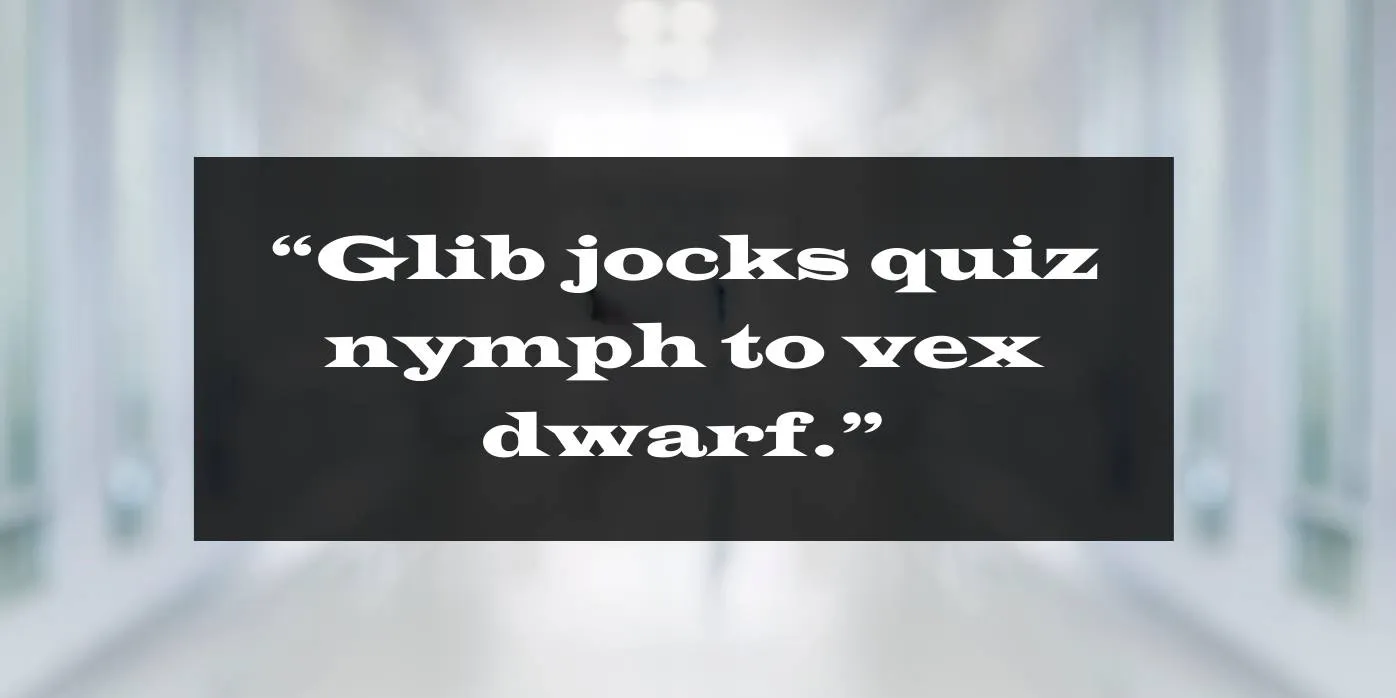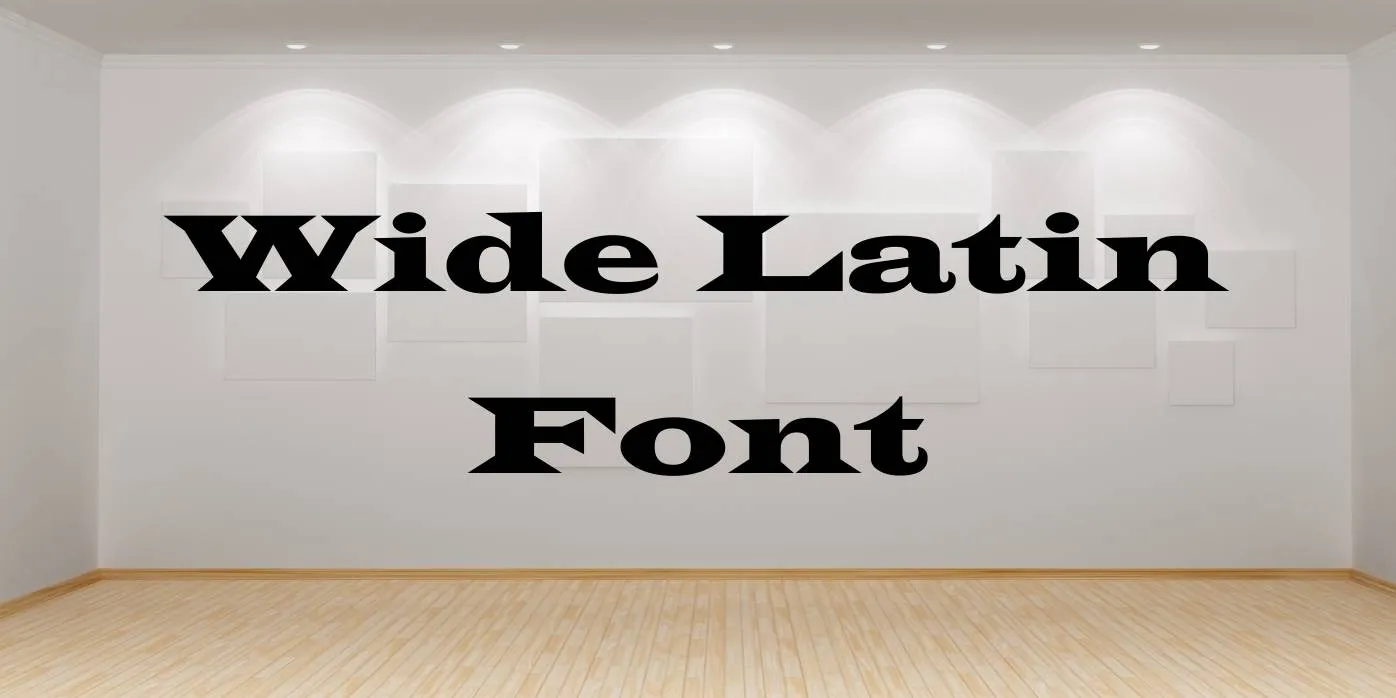
Wide Latin Font
Here, we present a very famous typeface named Wide Latin Font. This tremendous typeface e belongs to the Slab Serif family. The original designer of this family was Stephenson Blake. So, this family firstly appeared in 1820.
It is a very wide typeface that is best suited for headlines and other display purposes. It is available in both regular and bold weights. It also includes only one style. The CSS well specifies this font family.